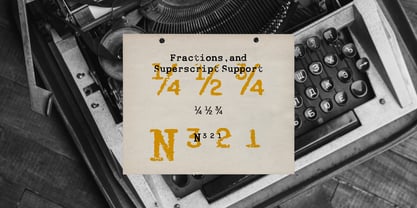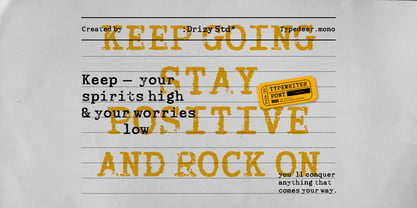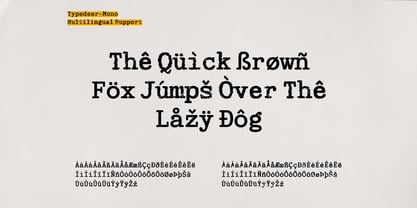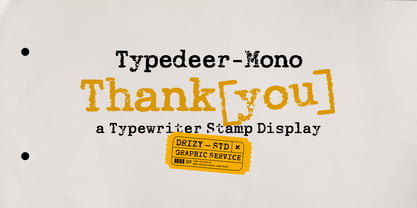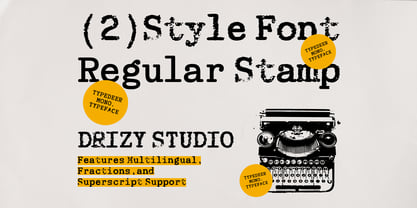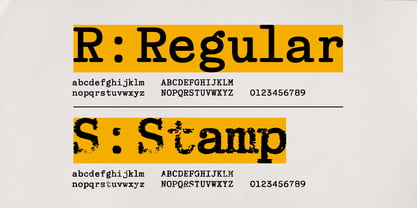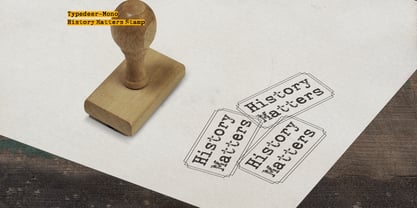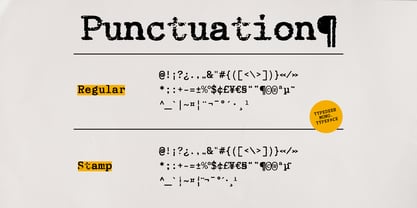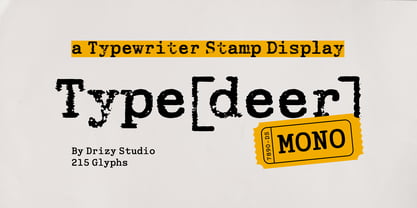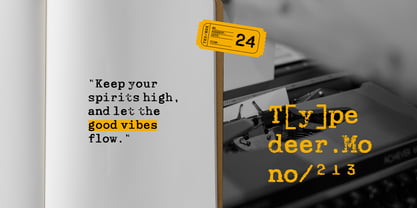
Typedeer Mono
by Drizy Font
TypedeerMono – Typewriter Stamp Display Font
TypedeerMono is a typeface designed to emulate the look of characters produced by rubber stamp. It features a unique and rugged appearance, resembling the imprints left by traditional rubber stamps. The font is characterized by irregular edges, varying ink saturation, and an overall distressed aesthetic, which adds a touch of authenticity to any design. TypedeerMono provides designers with a versatile tool for creating visually striking and memorable compositions with a nostalgic charm.
TypedeerMono features:
• Character Set (Uppercase & Lowercase)
• Punctuation & Numbers
• Variable : Regular & Stamp
• Multilingual